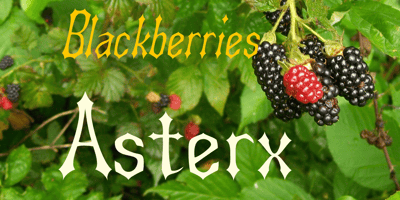
Asterx Font Family was designed by Robert Schenk and published by Ingrimayne Type. Asterx contains 4 styles and family package options. In the 19th century typefaces with star-like serifs developed from the medieval type styles, retaining the sharp corners and peaks of some of the blackletter types but losing the flourishes on the upper-case letters. Asterx is in that tradition of star-footed typefaces, though it is not modeled on any particular one.